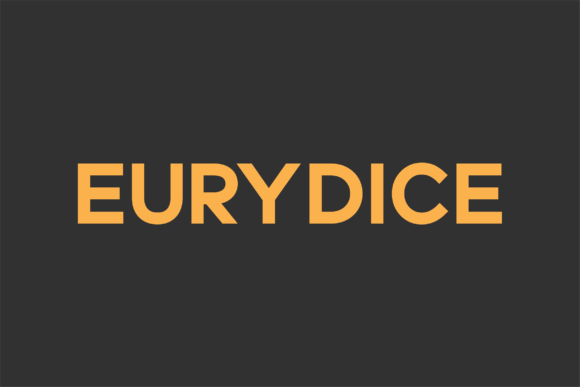
Eurydice Font: Elevate Your Designs with a Touch of Modern Elegance
In the world of typography, fonts play a pivotal role in conveying messages, expressing emotions, and creating lasting impressions. Among the myriad of fonts available, Eurydice stands out as a beacon of modernity and class. This versatile, sans serif font has captured the hearts of designers and creative enthusiasts alike, making it an ideal choice for a wide range of projects, from logos and wedding invitations to advertisements and magazine layouts.
Key Features of Eurydice Font
- Versatility: Eurydice is designed to adapt to various design needs. Its clean lines and modern aesthetic make it suitable for both digital and print projects.
- Modern Aesthetic: The font boasts a contemporary look that instantly elevates the visual appeal of any design.
- Classy Appeal: Despite its modernity, Eurydice maintains a level of sophistication, making it perfect for projects that require a touch of elegance.
- Readability: The sans serif design ensures excellent readability, even at smaller sizes, making it ideal for body text and captions.
10 Creative Ways to Use Eurydice Font
- Logo Design: Create memorable and impactful logos that stand out in the crowd with Eurydice’s unique and modern appeal.
- Wedding Invitations: Add a touch of elegance and sophistication to your wedding invitations, making the occasion even more special.
- Quotes and Typography Art: Eurydice’s clean lines make it perfect for showcasing inspirational quotes and creating stunning typography art.
- Advertisements: Whether it’s a digital ad or a print advertisement, Eurydice helps in creating compelling and engaging content.
- Magazines and Editorials: The font’s readability and aesthetic appeal make it an excellent choice for magazine layouts and editorial content.
- Branding: Consistency in branding is crucial, and Eurydice can be a valuable asset in creating a uniform brand image across various platforms.
- Packaging Design: Make your product stand out on the shelves with Eurydice’s modern and classy appeal.
- Web Design: Eurydice can add a professional and contemporary look to your website, enhancing user experience.
- Social Media Graphics: Create engaging and visually appealing social media graphics that capture attention.
- Infographics: The font’s clarity and modernity make it suitable for infographics, where information needs to be presented in an attractive and easily digestible format.
Tips for Getting the Best Results with Eurydice Font
- Experiment with Sizes: Eurydice’s versatility shines when used in various sizes. Don’t hesitate to experiment with different font sizes to create visual hierarchy.
- Play with Colors: The font’s clean design makes it compatible with a wide range of colors. Try different color combinations to find what works best for your project.
- Mix and Match: Eurydice can be paired with a variety of other fonts. Experiment with font combinations to add depth and interest to your designs.
- Consider Line Spacing: Ensure that your text is easy to read by paying attention to line spacing. Eurydice’s sans serif design benefits from adequate line height.
What Makes Eurydice Font Stand Out?
Eurydice is not just another font; it’s a design statement. Its modern and classy appeal, combined with its versatility, makes it a valuable tool for designers. Whether you’re working on a personal project or a professional assignment, Eurydice can help you achieve your creative vision.
The font’s ability to convey elegance and sophistication, while still being modern and fresh, is what sets it apart. Eurydice manages to strike a balance between simplicity and style, making it an excellent choice for a wide range of applications.
Eurydice font is a powerful tool in the world of design. Its modern, classy, and versatile nature makes it suitable for various projects, from professional branding to personal creative endeavors. By incorporating Eurydice into your designs, you can elevate your work, making it more engaging, elegant, and effective.